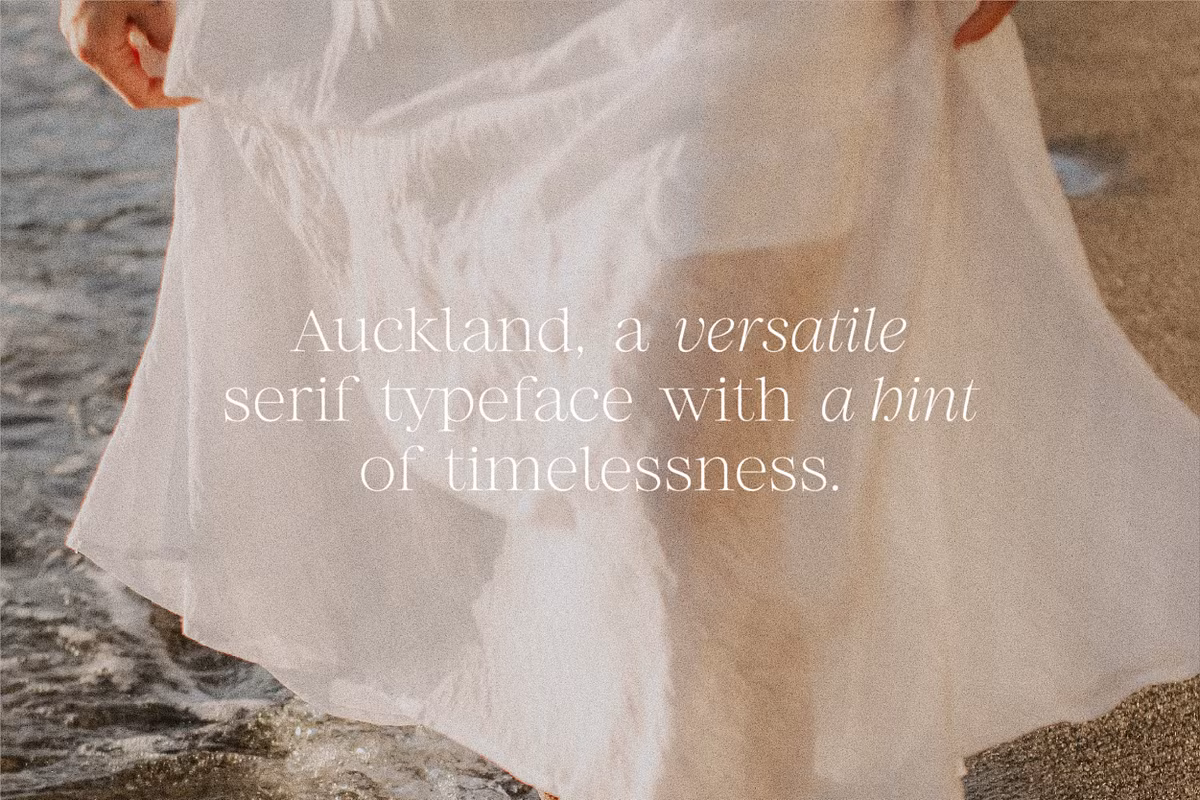
Auckland Variable Serif: Versatile Typeface for Creative Design
Auckland Variable Serif is not any typeface. Auckland Variable Serif is a serif font that adds a timeless feel to the design projects you work on. Auckland Variable Serif has well‑crafted curves and fine details. I have used Auckland Variable Serif for purposes. I find it works well. When I tried Auckland Variable Serif on a website header the letters looked clear. The spacing felt natural. Auckland Variable Serif fits display graphics, web design and social media posts. Auckland Variable Serif can raise the quality of your work.
Features of Auckland Variable Serif
I use the Auckland Variable Serif font family because the Auckland Variable Serif offers styles and many weights. The Auckland Variable Serif font family is a tool, for designers. These are features that set the Auckland Variable Serif apart:
- Multiple Weights: The Auckland font family has weights. The Auckland font family includes Thin, Regular, SemiBold, Bold and ExtraBold. The Auckland font family lets you pick the weight for your text.
- Italic Variants: Each weight comes with a counterpart. The italic counterpart gives me flexibility in my typography.
- Variable Font Options: Auckland includes variable font formats. I like that Auckland lets me adjust the weight and slant to match my design needs.
- Language Support: I find Auckland supports many of the languages and Vietnamese. I find Auckland is a choice, for projects. Auckland works well.
Benefits of Using Auckland Variable Serif
When you choose Auckland Variable Serif, Auckland Variable Serif benefits the design in ways:
- Timeless Elegance: I use Auckland. I see the curves and the own feel give a design a classy look. I find Auckland makes the design different, from the fonts.
- Versatility: I have used Auckland for print, digital and branding material. Auckland adapts to any situation. Auckland makes sure the message gets across well.
- Readability: I notice the letterforms of Auckland are well designed. The letterforms of Auckland promote readability. Readability is very important, for any design.
How to Use Auckland Variable Serif in Your Projects
- For Print Design: I use Auckland for brochures, posters or any printed material. Auckland’s simple design catches the eye. Makes the whole thing look better.
- For Web Design: Auckland’s legibility, at sizes makes Auckland perfect, for web applications. I use weights to build a hierarchy in the content. The hierarchy helps guide viewers through the website.
- For Social Media: I add Auckland to my media graphics. Auckland makes my posts stand out and shows my brand personality. The unique character of Auckland helps my posts get the audience’s attention.
To sum up, Auckland Variable Serif is not a typeface. Auckland Variable Serif works as a design tool that can change a project. Auckland Variable Serif has curves, weights and can be used in many ways. Designers find Auckland Variable Serif a good choice. I have used Auckland Variable Serif on projects. I notice the difference. If you design a brand identity, a web page or a social media graphic, Auckland Variable Serif adds style and easy reading to the result. Do not hesitate to explore the range of styles and features, in the Auckland Variable Serif family. The Auckland Variable Serif family gives your designs the look your designs deserve. Try the Auckland Variable Serif family now.